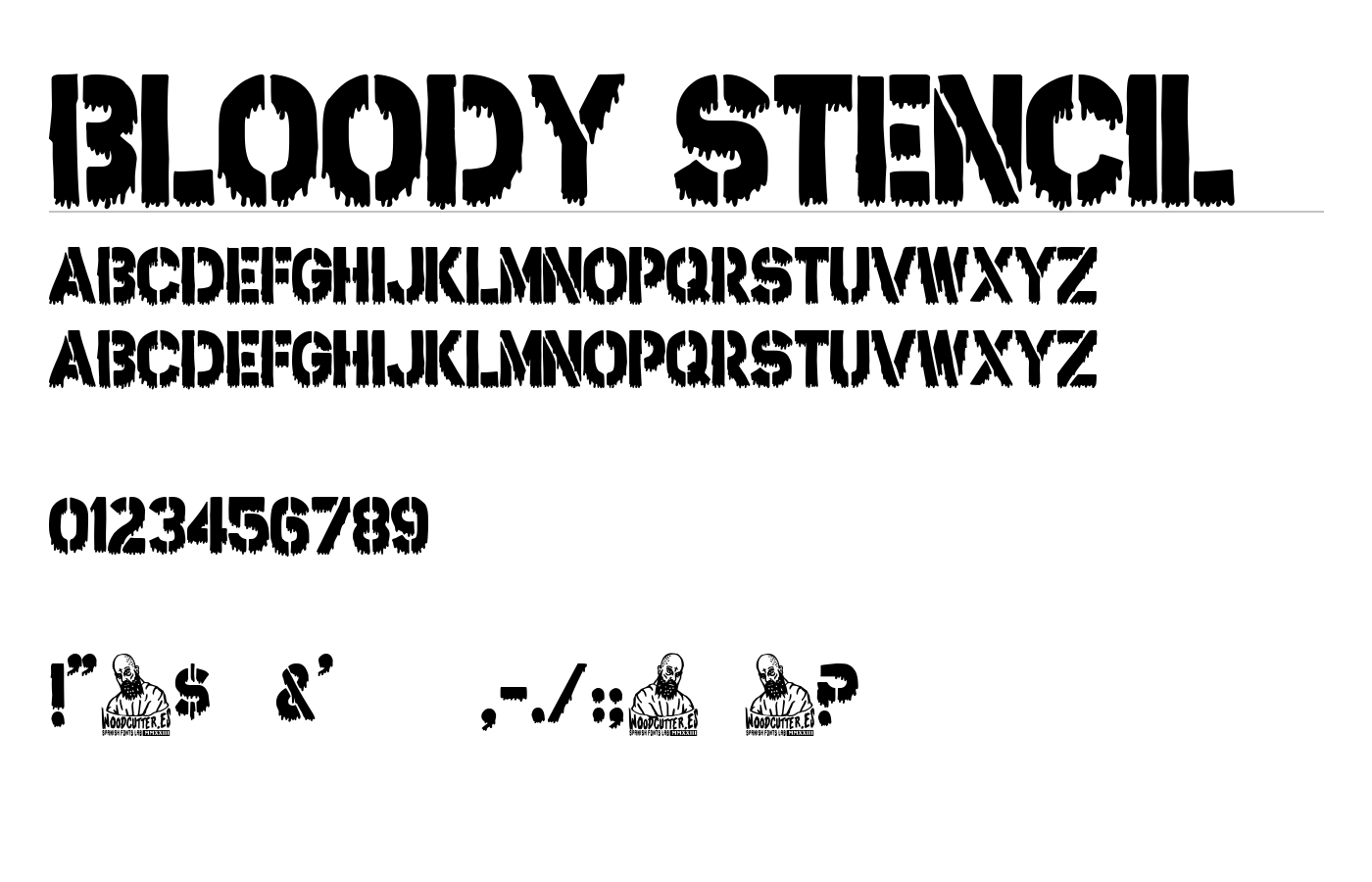
Bloody Stencil is a bold, condensed sans serif font with a distinctive stencil style featuring rough, dripping edges that evoke a gritty, horror-inspired aesthetic. Its heavy weight and strong presence make it perfect for creating eye-catching headlines and logos, especially in themes related to Halloween, thriller movies, or edgy street art. This font works best in display settings where its dramatic, spooky personality can shine.
Bloody Stencil Font
About Bloody Stencil Font